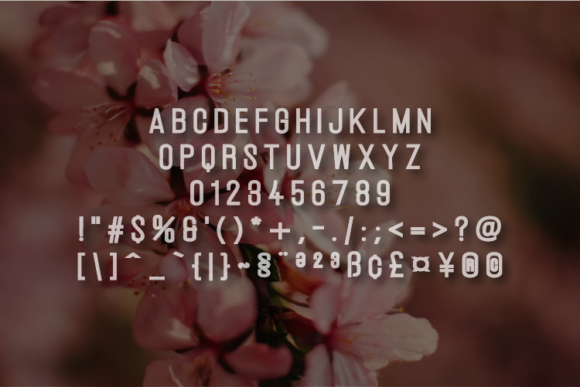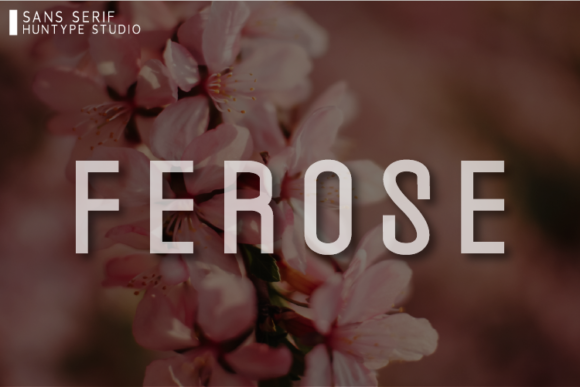
Ferose Font: A Modern Sans Serif Marvel for Designers and Crafters
In the realm of typography, a font can make or break a design. The right font can elevate a project from ordinary to extraordinary, while a poorly chosen one can have the opposite effect. For designers and crafters on the lookout for a versatile and stylish sans serif font, Ferose Font is an excellent choice. This modern font is specifically designed to make a statement, and in this article, we’ll explore its features, benefits, and uses.
What is Ferose Font?
Ferose Font is a contemporary sans serif font that exudes simplicity, elegance, and sophistication. Its clean lines, precise curves, and balanced proportions make it an ideal choice for a wide range of design applications. Whether you’re working on a logo, branding project, packaging design, or any other creative endeavor, Ferose Font is sure to impress.
Key Features of Ferose Font
- Modern sans serif design: Ferose Font boasts a sleek and modern sans serif design that is both visually appealing and highly legible.
- Versatility: This font is incredibly versatile and can be used in various design contexts, from logos and branding to packaging design and more.
- Clean lines and precise curves: Ferose Font features clean lines, precise curves, and balanced proportions, making it a joy to use and behold.
- High legibility: The font’s clear and concise design ensures that it remains highly legible, even at small sizes.
Benefits of Using Ferose Font
So, why should designers and crafters choose Ferose Font for their projects? Here are just a few benefits of using this exceptional font:
- Enhance your brand’s visual identity: Ferose Font can help you create a strong and cohesive visual identity for your brand, setting you apart from the competition.
- Elevate your designs: With Ferose Font, you can add a touch of sophistication and elegance to your designs, making them more engaging and effective.
- Streamline your workflow: This font’s versatility and legibility make it easy to use across various design applications, saving you time and effort.
Uses of Ferose Font
Ferose Font is an incredibly versatile font that can be used in a wide range of design applications, including:
- Logo design: Create a lasting impression with a custom logo designed using Ferose Font.
- Branding: Establish a strong visual identity for your brand with Ferose Font.
- Packaging design: Add a touch of sophistication to your packaging designs with Ferose Font.
- Advertising: Use Ferose Font to create eye-catching ads that grab attention.
- Digital media: Ferose Font is perfect for use in digital media, including websites, social media graphics, and more.
In conclusion, Ferose Font is a modern sans serif marvel that is sure to become a staple in every designer’s and crafter’s toolkit. Its versatility, legibility, and sophisticated design make it an excellent choice for a wide range of design applications. Whether you’re working on a logo, branding project, packaging design, or any other creative endeavor, Ferose Font is a true must-have. So why wait? Download Ferose Font today and take your designs to the next level!